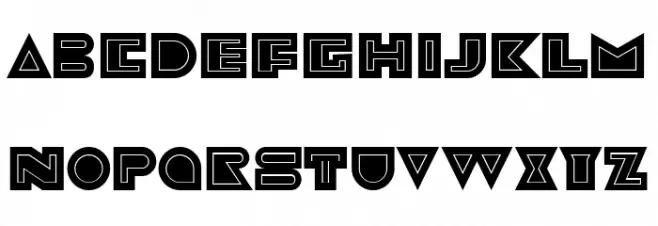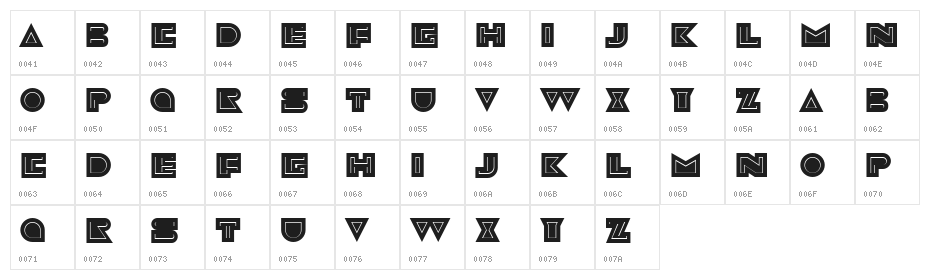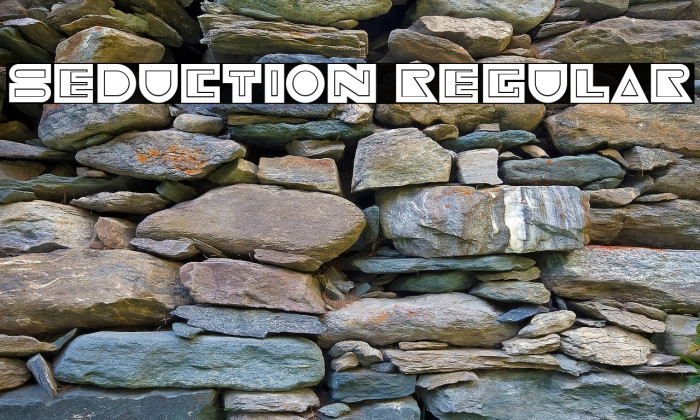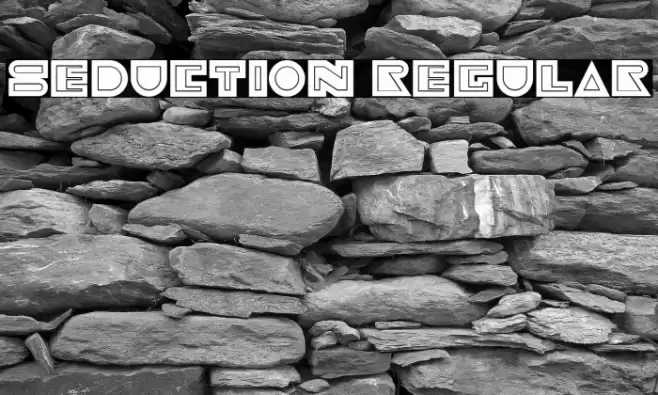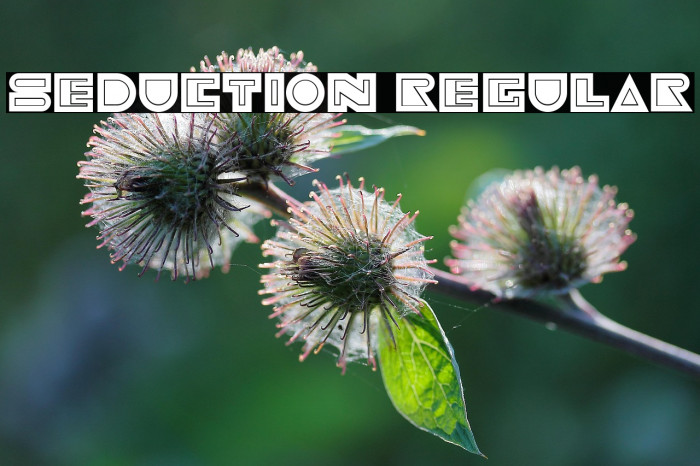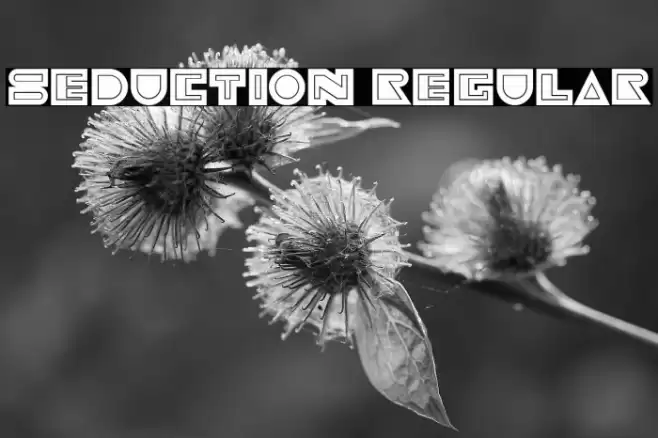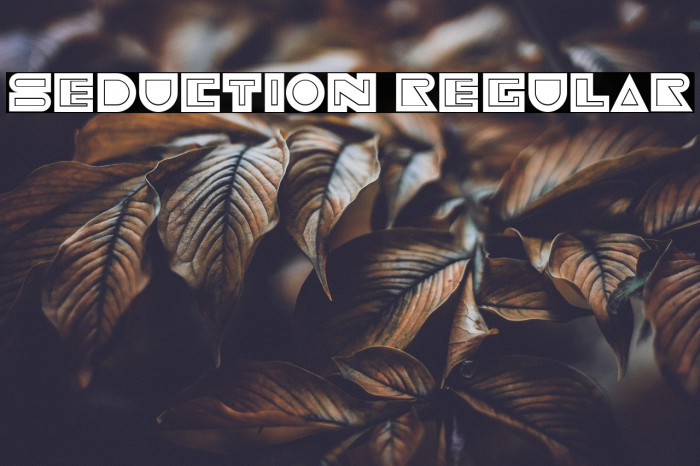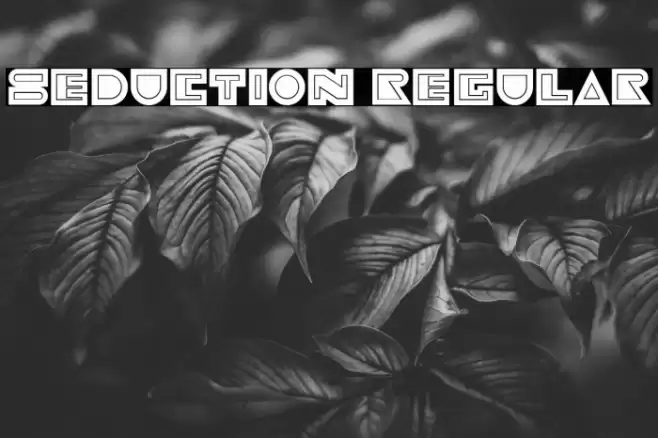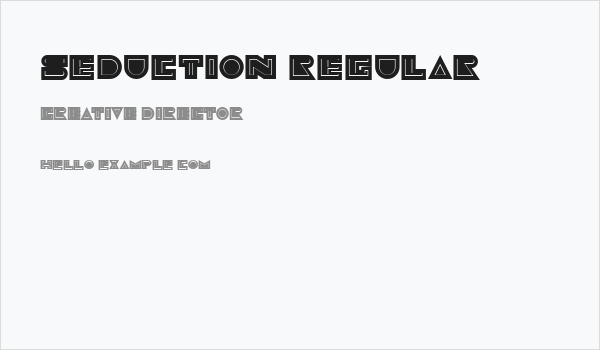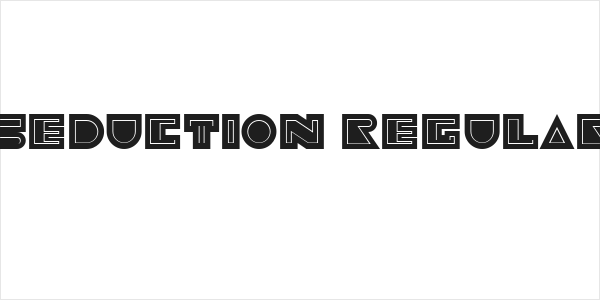
Seduction Regular Font
Seduction Regular Description
This font features a bold and geometric design with a distinct art deco influence. The characters are constructed with thick lines and sharp angles, creating a sense of movement and energy. The uppercase letters are particularly striking, with unique shapes that make each character stand out. The font's style is both modern and retro, making it versatile for various design projects. The overall appearance is clean and structured, yet it maintains a playful and artistic flair. This font is ideal for creating eye-catching headlines, posters, and branding materials that require a strong visual impact.
| Overall Style | Modern, Retro |
| Proposed Projects | Ideal for posters, branding, and any project needing a bold, retro-modern aesthetic. |